Edwardian Script for our fancy font, any suggestions for our plain font??
I'm thinking of using Edwardian Script for our fancy font but I need to find a plain font for the rest of the wording?? any suggestions?? Undecided
Is this for your programs, invites, what? I used edwardian font for my fancy headings in my programs and then I used high tower text regular and italic for regular stuff (names of readings etc). here is a pic of my program insides for you to look at:Edwardian Script for our fancy font, any suggestions for our plain font?? :  wedding fonts diy invitations Inside Program
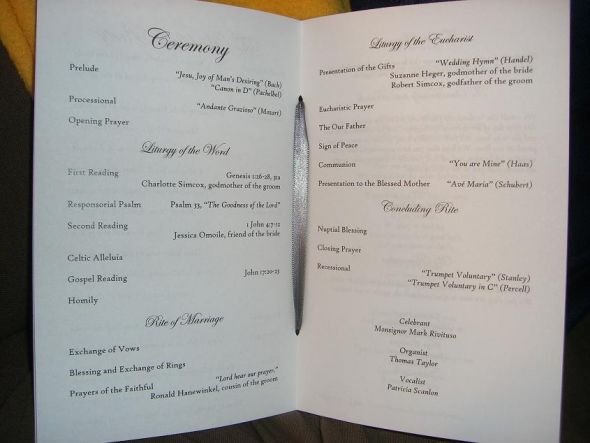
I use Edwardian Script for the fancy font and Century Gothic for the plain font.  In helping some friends do other wedding stuff I'm having trouble staying away from this combination I like it so much!! :-)
I'm also a fan of century gothic :)
I like Century Gothic, Champagne & Limosines, Bookman Oldstyle, and Tunga.
I think a nice serif font would compliment it - something like Garamond or Caslon. Something classic and elegant.
I used Edwardian script for the script on our invites, and then Bernhardt fashion for the text.